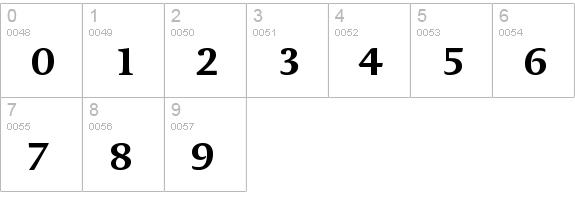
DTLDorianT-Bold is a strong, high-contrast variant in the DTLDorianT typeface family \xE2\x80\x94 well suited to headlines, attention-grabbing titles, and strong calls-to-action.
DTLDorianT-Bold is a bold and impactful font that demands attention with its strong and confident appearance. The thick lines and sharp edges of this font make it perfect for headlines, titles, and any design that requires a bold statement. Its modern yet classic style gives a sophisticated touch to any project. What makes DTLDorianT-Bold even more appealing is that it is available for free download at FontsMarket.com. This means that you can easily access this stunning font without any cost, making it a valuable addition to your font collection. Whether you are working on a poster, logo, or any other design project, DTLDorianT-Bold will make sure your message stands out with its bold and stylish look. Download it now and elevate your designs with this exceptional font.